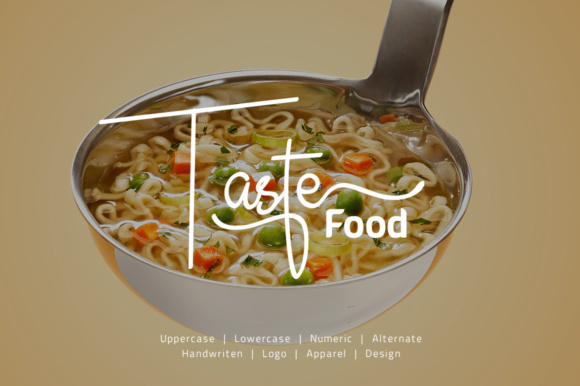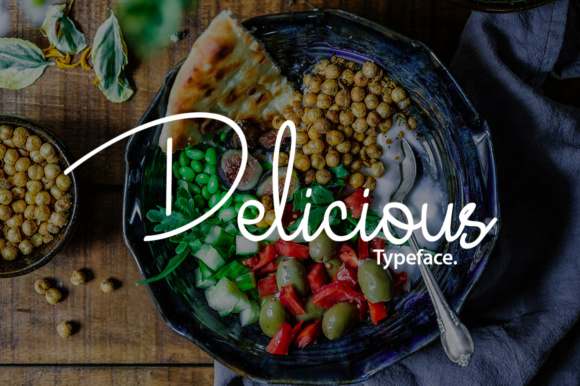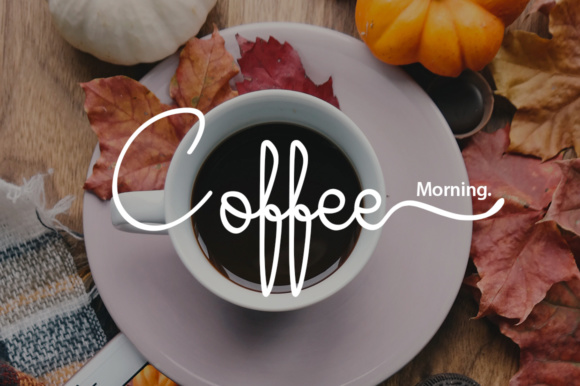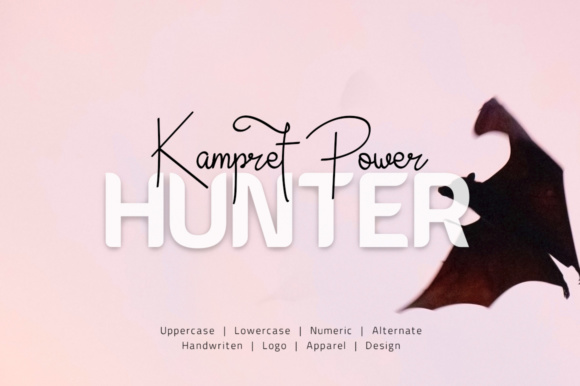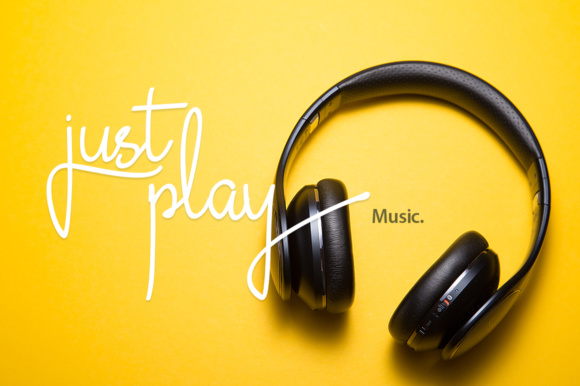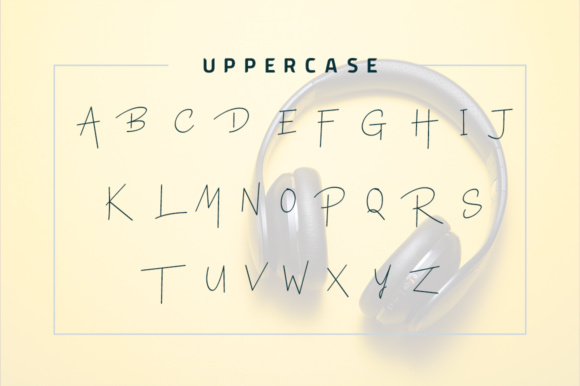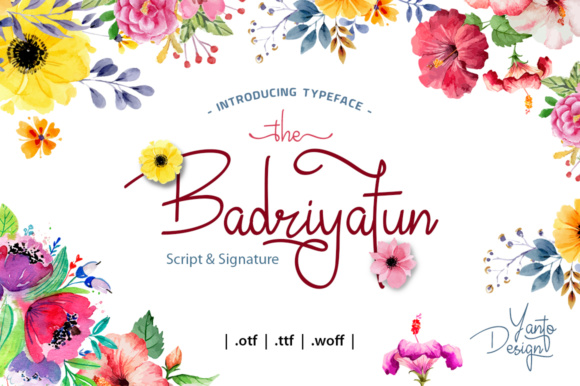
Introducing the Elegant Badriyatun Script Font: A Stylish Addition to Your Typography
The Badriyatun Script Font is a beautiful, calligraphy-style typeface that is sure to add a touch of sophistication and elegance to any design project. With its smooth classical lines and varying baseline, this font is perfect for designers and crafters looking to add a unique and interesting element to their work.
What Makes the Badriyatun Script Font Special?
The Badriyatun Script Font features a distinctive, hand-crafted design that sets it apart from other fonts. Its smooth, flowing lines and classic style give it a timeless look that is reminiscent of traditional calligraphy. The font’s varying baseline adds a touch of whimsy and playfulness, making it perfect for use in a variety of design projects, from wedding invitations and greeting cards to branding and packaging.
Key Features of the Badriyatun Script Font
- Calligraphy-style design: The Badriyatun Script Font features a beautiful, hand-crafted design that is reminiscent of traditional calligraphy.
- Smooth classical lines: The font’s smooth, flowing lines give it a classic, elegant look that is perfect for use in a variety of design projects.
- Varying baseline: The font’s varying baseline adds a touch of whimsy and playfulness, making it perfect for use in designs where you want to add a bit of personality.
- Unique and interesting touch: The Badriyatun Script Font’s distinctive design makes it a great choice for designers and crafters looking to add a unique and interesting element to their work.
Uses for the Badriyatun Script Font
The Badriyatun Script Font is a versatile typeface that can be used in a variety of design projects, including:
- Wedding invitations and stationery: The font’s elegant, calligraphy-style design makes it perfect for use in wedding invitations, save-the-date cards, and other stationery.
- Greeting cards and gift tags: The font’s smooth, flowing lines and classic style make it a great choice for use in greeting cards and gift tags.
- Branding and packaging: The Badriyatun Script Font’s distinctive design makes it a great choice for use in branding and packaging, where you want to stand out from the crowd.
- Signage and displays: The font’s elegant, calligraphy-style design makes it perfect for use in signage and displays, where you want to make a lasting impression.
Tips for Using the Badriyatun Script Font
Here are a few tips for using the Badriyatun Script Font in your design projects:
- Use it sparingly: The Badriyatun Script Font is a beautiful, elegant typeface that can add a touch of sophistication to your designs. However, it’s best used sparingly, as too much of it can be overwhelming.
- Pair it with a simple font: The Badriyatun Script Font’s distinctive design makes it a great choice for use as a headline or title font. Pair it with a simple font, such as a sans-serif or serif font, to create a beautiful and elegant design.
- Experiment with different colors and textures: The Badriyatun Script Font’s smooth, flowing lines and classic style make it a great choice for use in a variety of design projects. Experiment with different colors and textures to find the perfect look for your design.
The Badriyatun Script Font is a beautiful, elegant typeface that is sure to add a touch of sophistication and elegance to any design project. With its smooth classical lines, varying baseline, and distinctive design, this font is perfect for designers and crafters looking to add a unique and interesting element to their work. Whether you’re creating wedding invitations, greeting cards, or branding and packaging, the Badriyatun Script Font is a great choice.